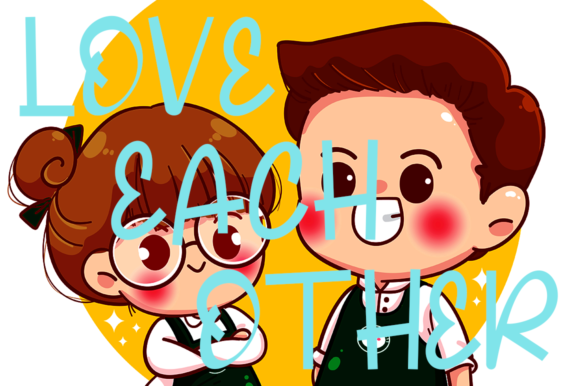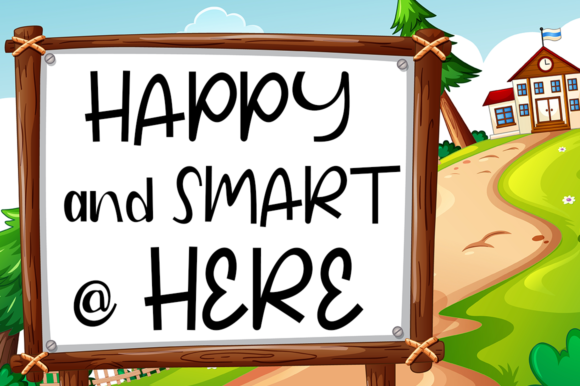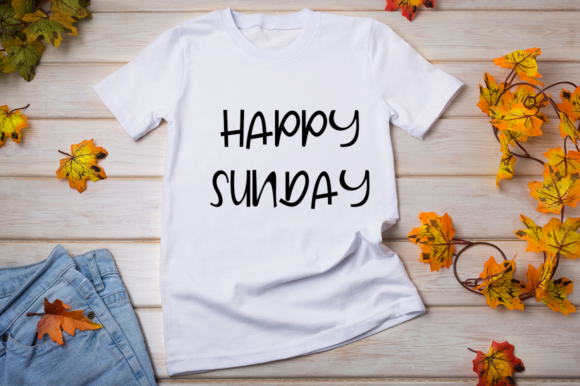
Introduction to Dalbo Font
Have you ever found yourself doodling in a notebook, trying to capture the perfect handwritten font? The struggle is real, but the result is often worth it. The search for that perfect handwritten font can be a tedious one, but what if you stumbled upon a design resource that would change the game for you?
Meet the Dalbo Font, a cute and relaxed handwritten font that embodies playfulness and authenticity. This versatile font is the perfect choice for a variety of casual or informal designs, from social media graphics to wedding invitations.
As a designer, having access to high-quality fonts like Dalbo Font can be a game-changer for your creative project. With a transparent background and a free download option, you can experiment with this font without breaking the bank. Whether you’re a seasoned pro or just starting out, Dalbo Font is a valuable addition to any design arsenal.
Key Features of Dalbo Font
- High-quality design resource for creative projects, perfect for those looking for a unique and professional touch.
- Transparent background, allowing for easy layering and blending with other design elements.
- Features a clean and modern aesthetic, with a focus on legibility and readability.
- Designed to be highly versatile, suitable for a wide range of creative projects, from logos and branding to digital art and typography.
- Includes a range of font sizes and resolutions, from 72 dpi to 300 dpi, for optimal use in various design applications.
Honest Review: Dalbo Font
I recently had the opportunity to work with the Dalbo Font for a creative project and I must say, it was a game-changer. This design resource has a unique and modern aesthetic that added a touch of sophistication to my design.
What works well: ✨ The font’s clean lines and high quality design make it perfect for creating a professional and sleek look. I also appreciated the transparent background, which allowed me to easily overlay the text on any image or background. The free download was a bonus, as it saved me money on purchasing a premium font.
What doesn’t work well: ⚠️ While the Dalbo Font is a great resource, I found that it may not be suitable for projects that require a lot of customization. The font’s design is quite specific, so it may not be the best choice for projects that require a lot of flexibility.
Overall, I was really impressed with the Dalbo Font and would definitely recommend it to anyone looking for a high-quality, modern font. Just keep in mind its limitations and use it for projects that align with its design aesthetic.
Here are some of the key features I liked:
- Modern and sophisticated design
- High quality and clean lines
- Transparent background for easy overlay
Dalbo Font
The Dalbo Font is a high-quality design resource perfect for your next creative project. This versatile font features a transparent background, making it easy to use and customize.
Tips for Getting the Most Out of Dalbo Font
To get the most out of the Dalbo Font, be sure to experiment with different font sizes, colors, and combinations. This versatile font can be used in a wide range of creative projects, from logos to graphics.
The Dalbo Font is perfect for a wide range of creative projects, including:
– Logos and branding materials
– Social media graphics
– Infographics and presentations
Yes, the Dalbo Font features a transparent background, making it easy to use in designs that require a clean and minimalist aesthetic. This is particularly useful for designers working on creative projects that involve layered graphics or complex compositions.
While the Dalbo Font is a high-quality design resource, it is not intended for modification or customization. However, designers can use the font as a starting point and experiment with different combinations of letters and styles to create unique and creative effects.